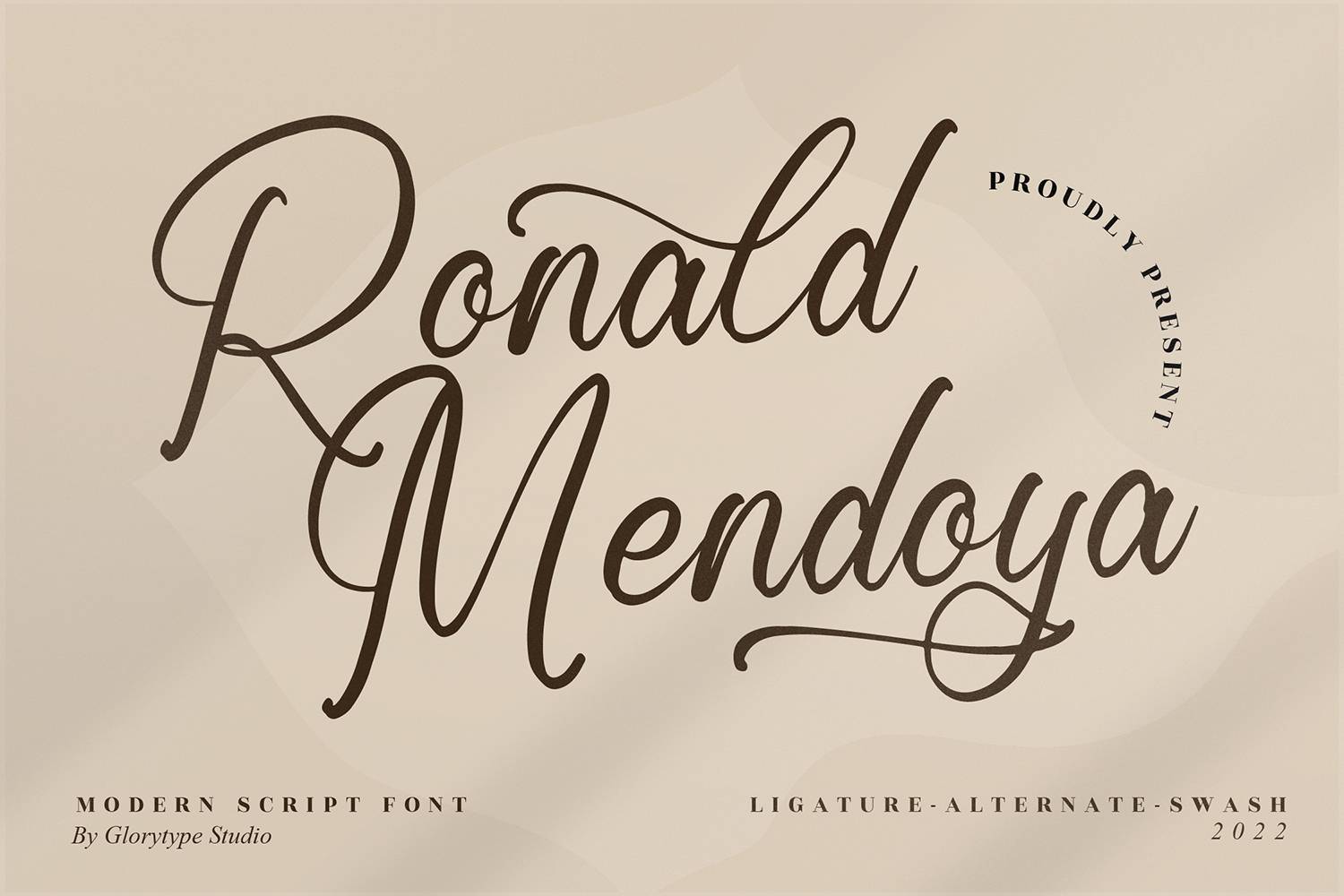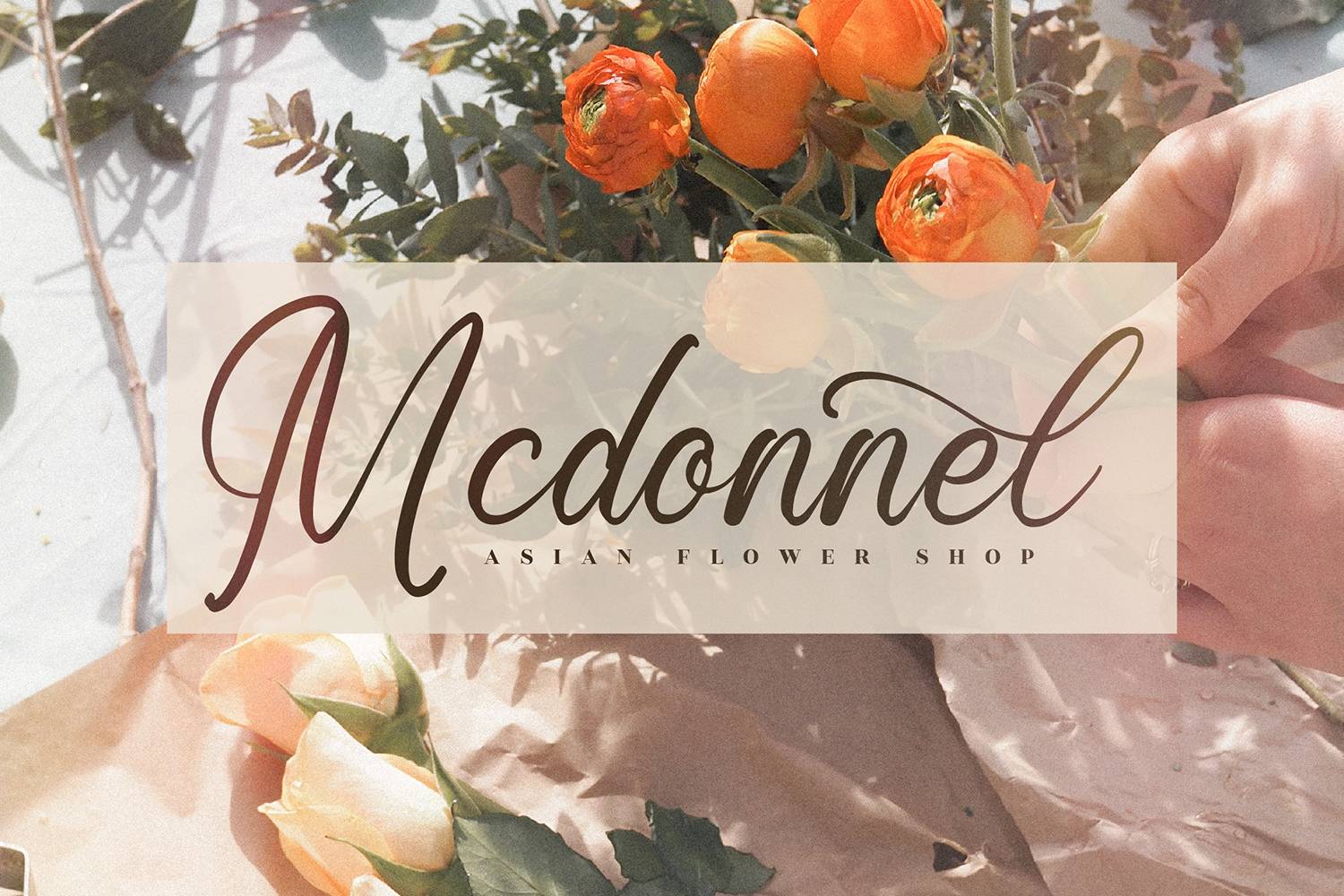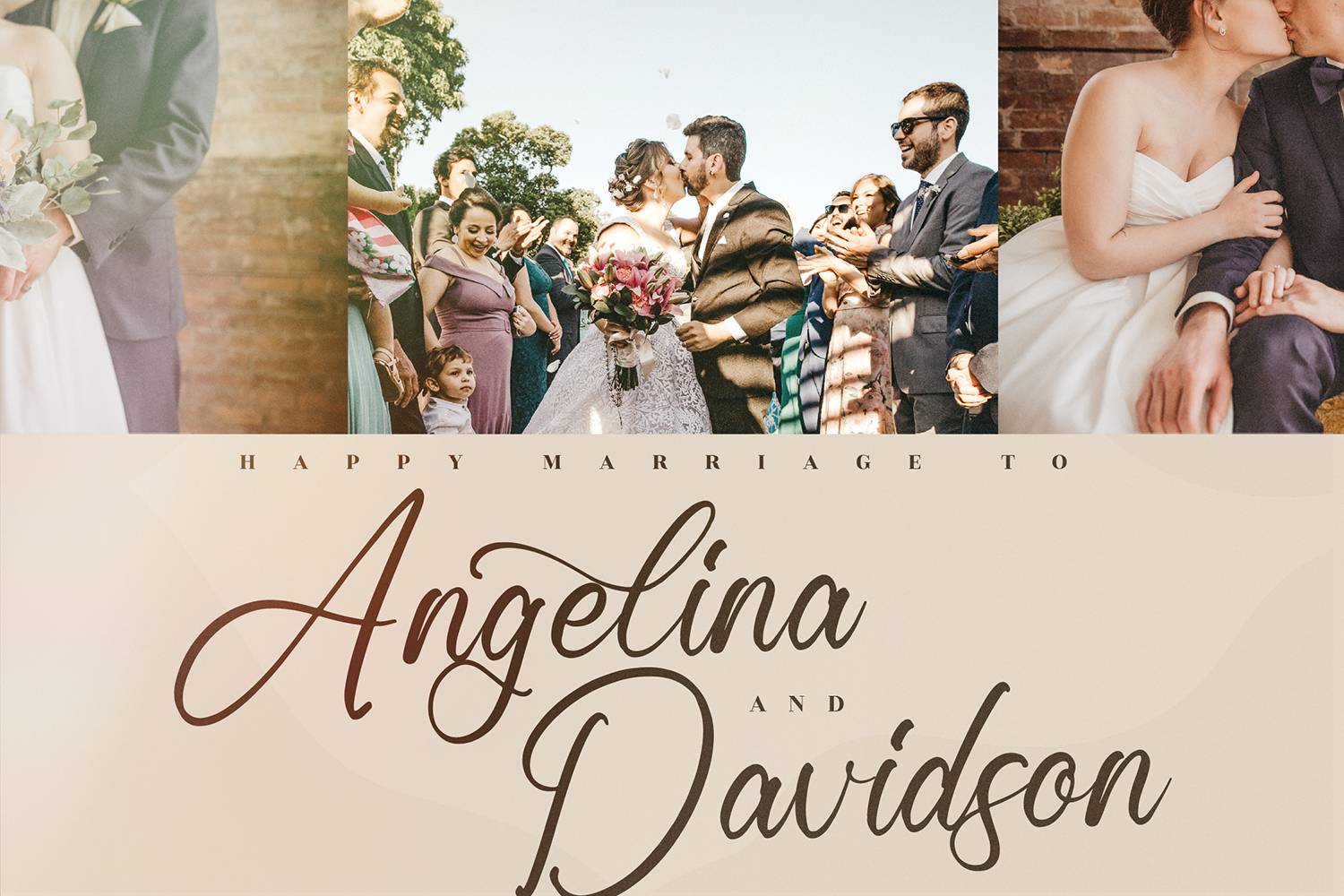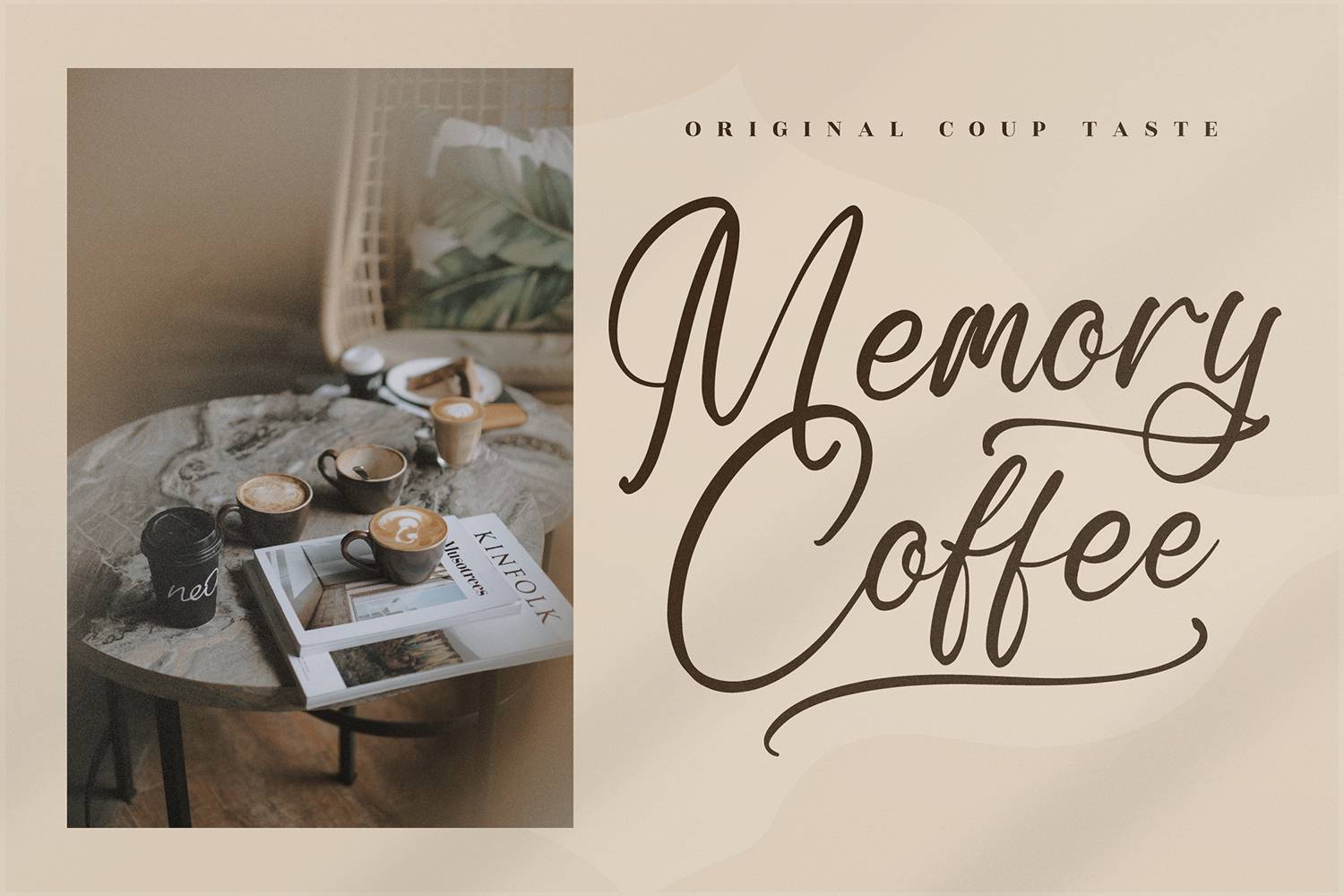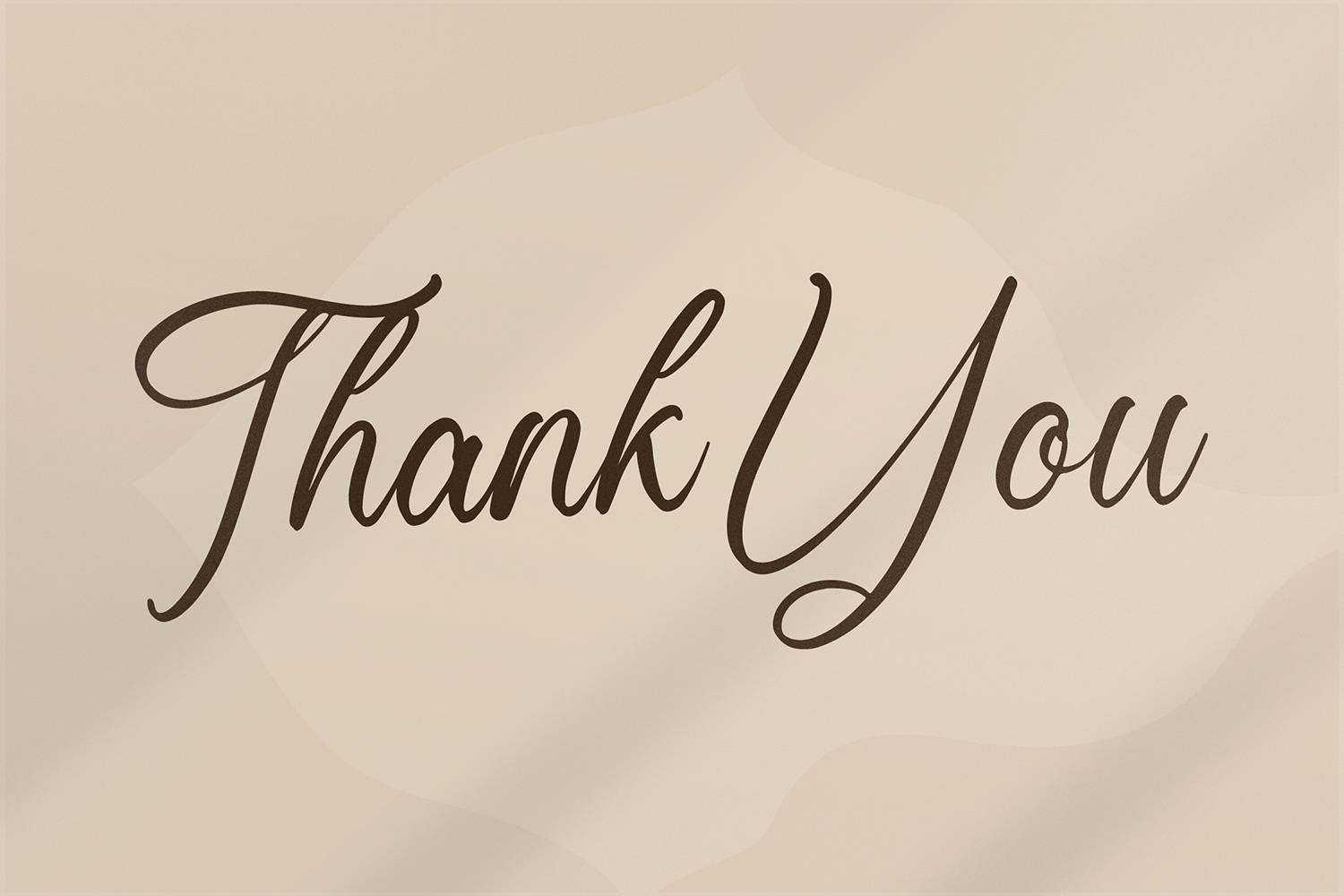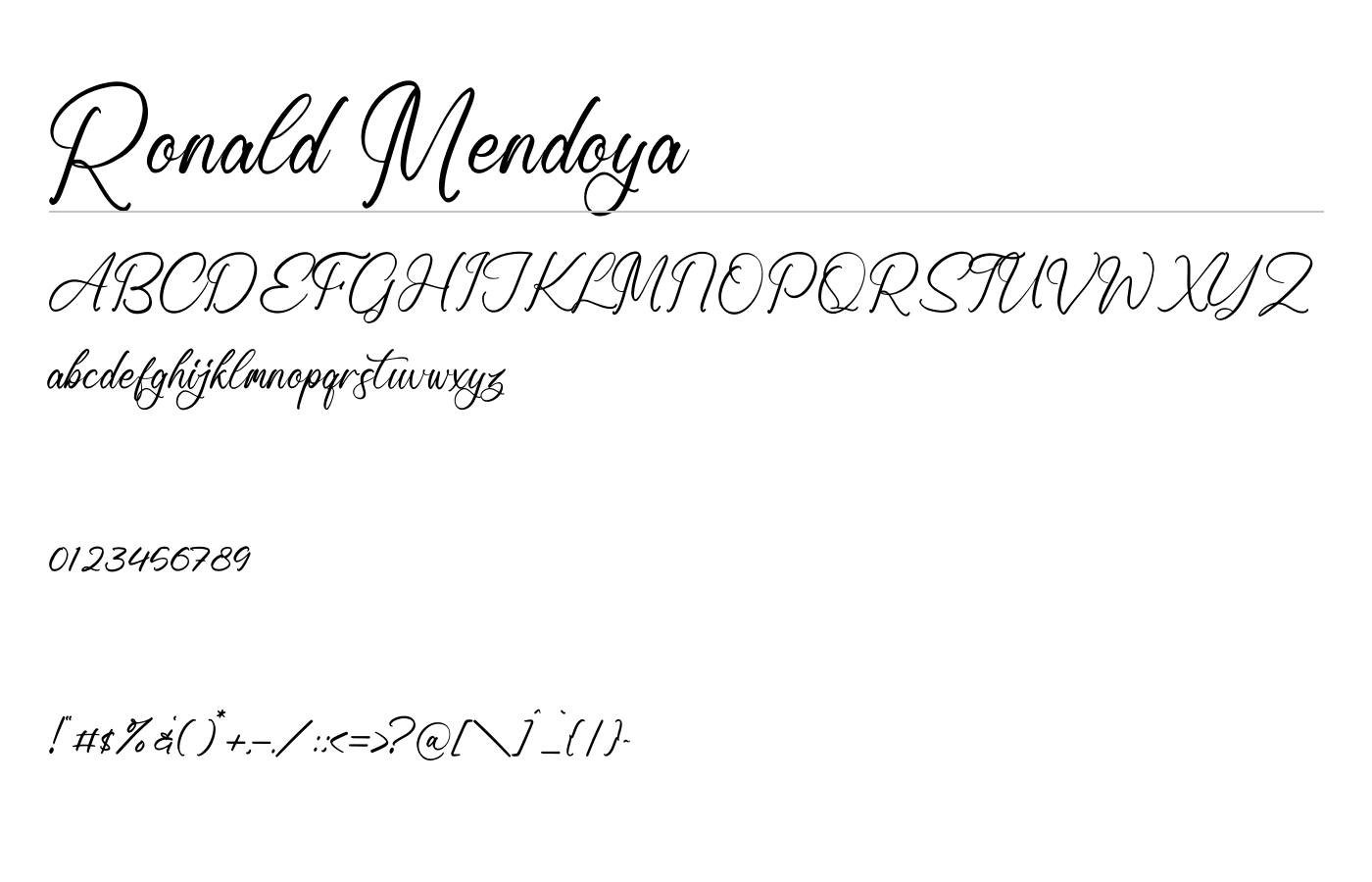
Ronald Mendoya is an elegant script font characterized by its smooth, flowing strokes and delicate, handwritten feel. It features a slender weight with graceful uppercase and lowercase letters that showcase fine curves and subtle details, making it ideal for sophisticated branding, invitations, and stylish headlines. This font’s refined personality brings a touch of luxury and charm, perfect for projects seeking a personal yet polished look.
Ronald Mendoya Font
About Ronald Mendoya Font